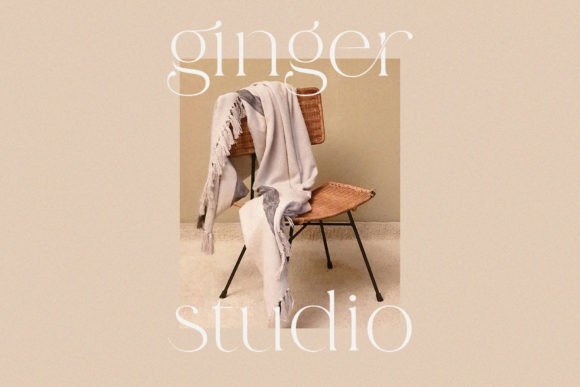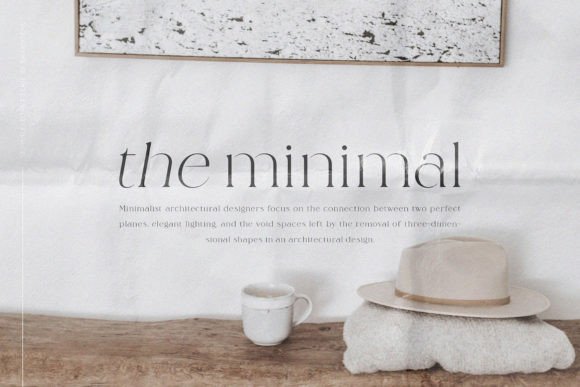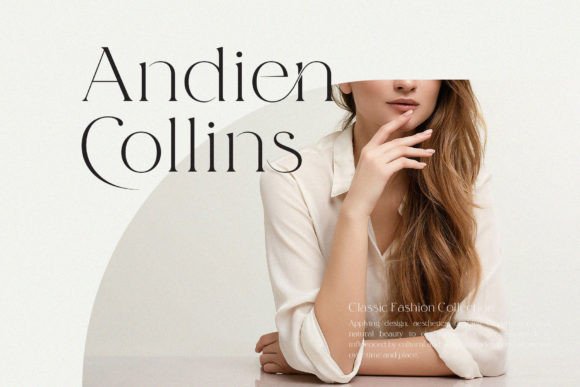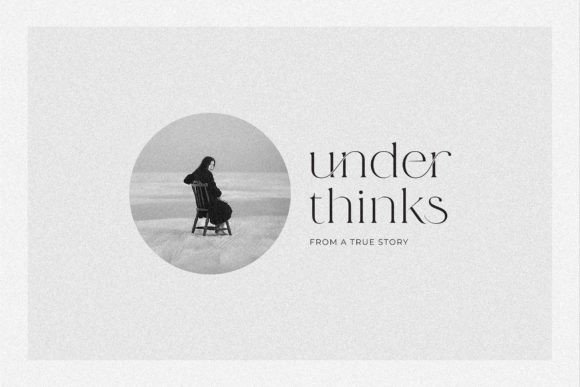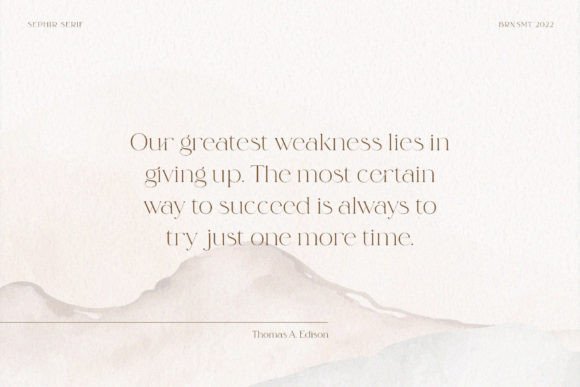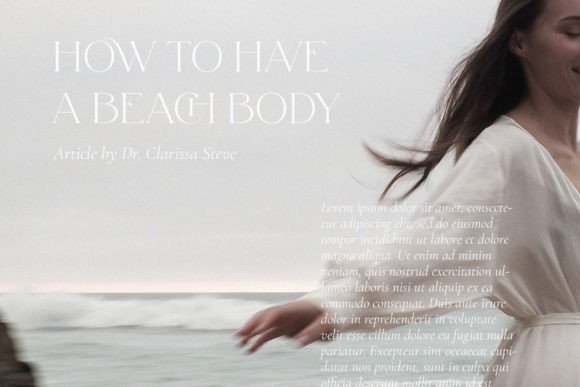
Introduction to Sephir Font
Sephir is a modern, elegant, and classy serif font, best used as a display for headings, logos, branding, magazines, product packaging, and invitations.
Sephir comes with clean lines and smooth curves, giving any project an extra touch of class .